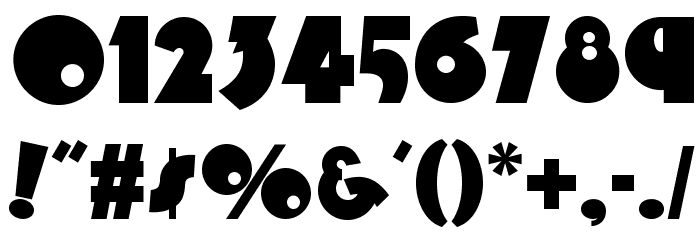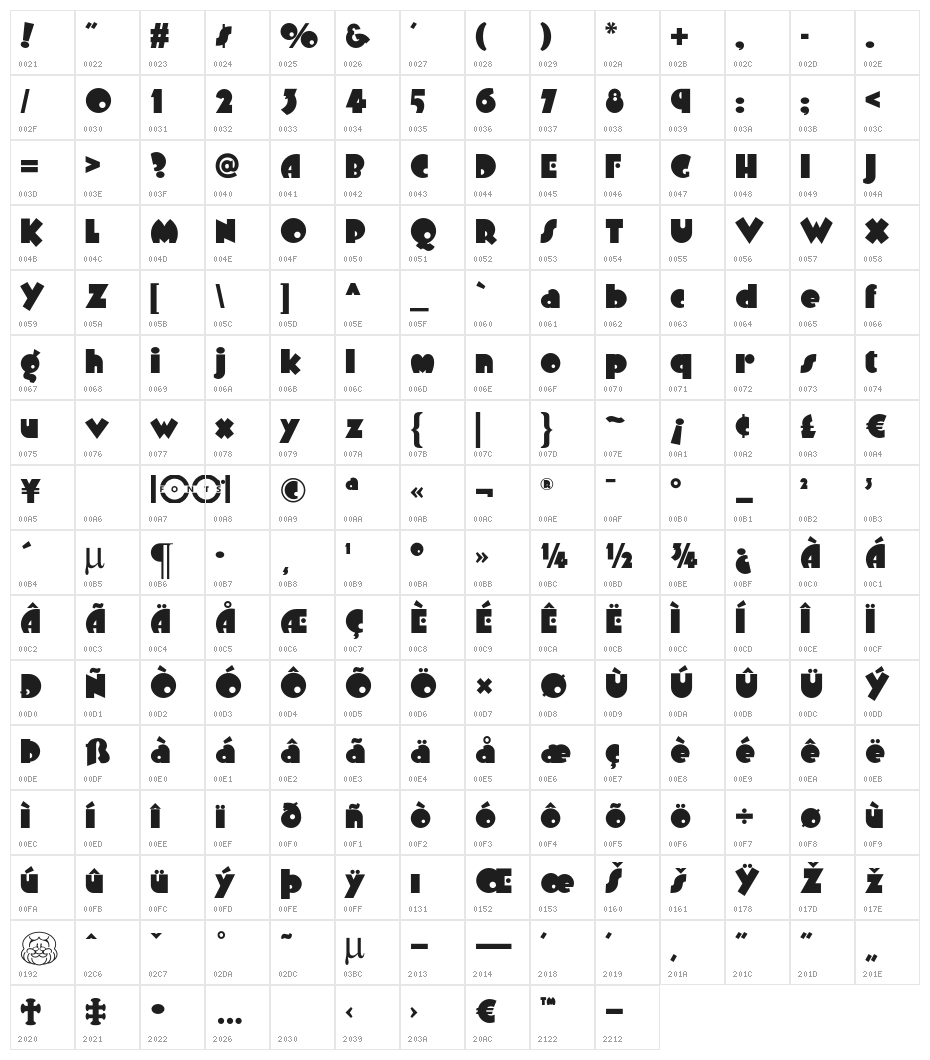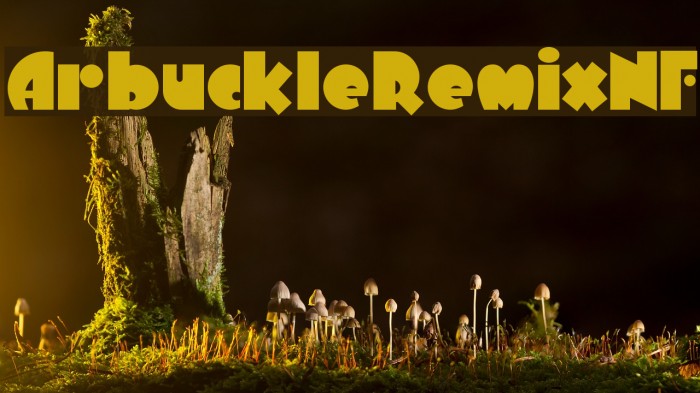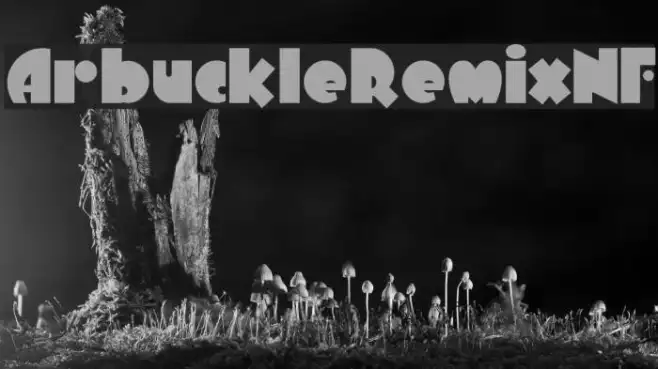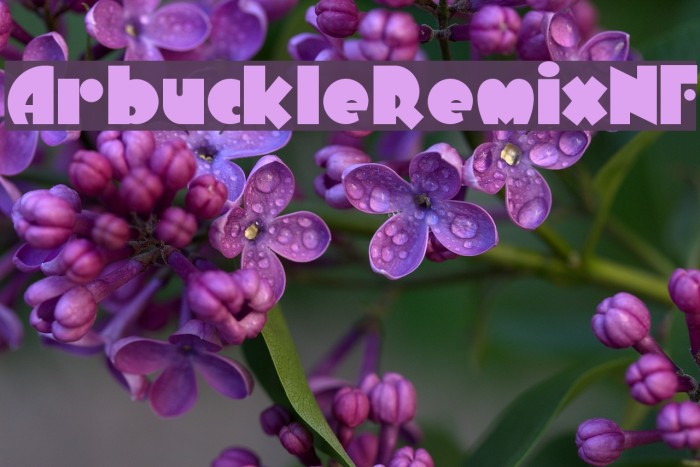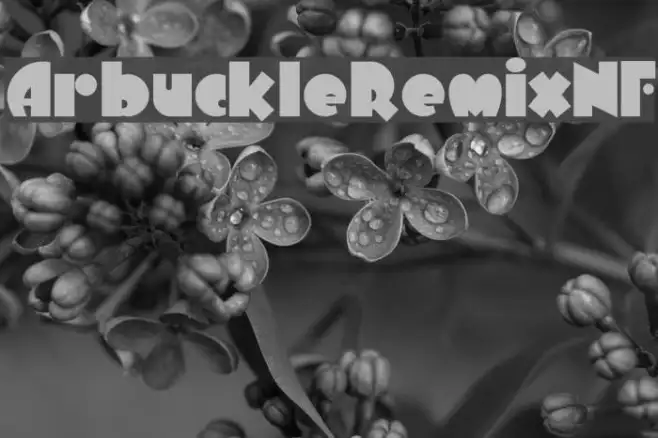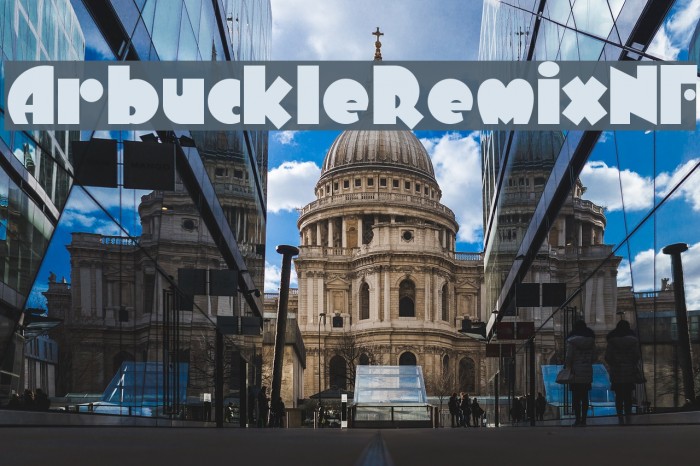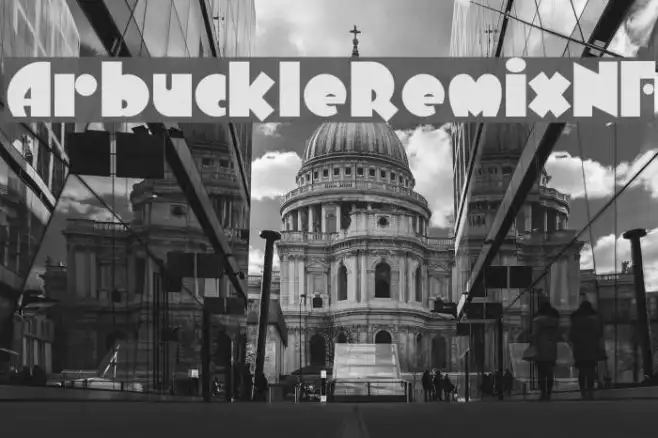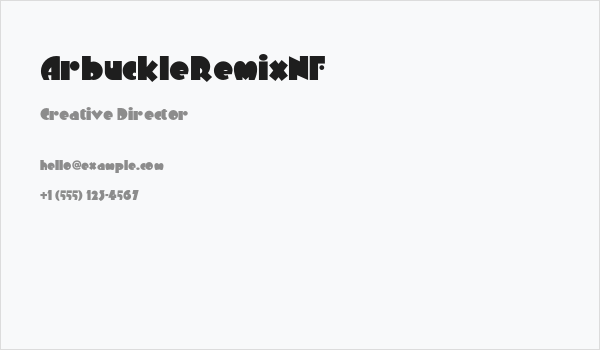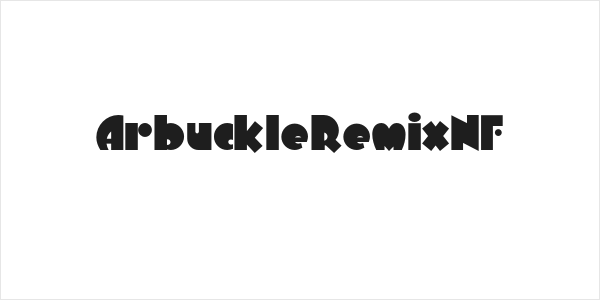
ArbuckleRemixNF Font
ArbuckleRemixNF Description
This font features a bold and playful design with geometric shapes and a strong presence. The characters are constructed with a mix of sharp angles and smooth curves, creating a dynamic and eye-catching appearance. The uppercase letters are particularly striking, with a consistent weight and width that give them a solid and impactful look. The lowercase letters maintain the playful style, with some characters incorporating unique design elements that add to the font's charm. The numerals and special characters follow the same bold and geometric style, ensuring a cohesive look across all text elements.
| Proposed Projects | Ideal for posters, logos, and branding materials that require a bold and playful aesthetic. |